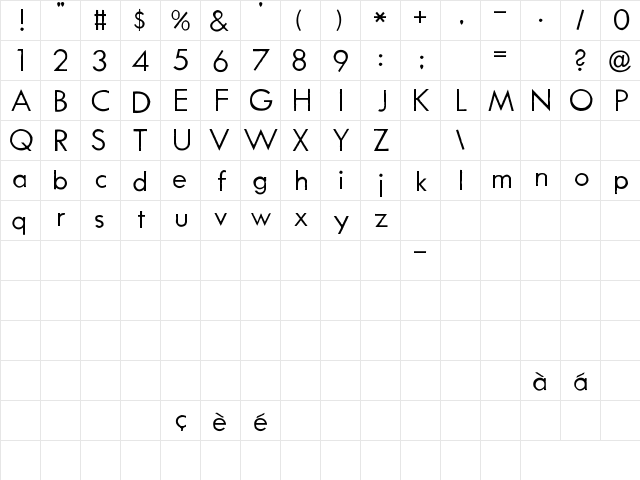
2Peas Weathered Fence 2Peas Weathered Fence
| Foundry | High-Logic |
| Designer | High-Logic - Erwin Denissen |
Design Context for 2Peas Weathered Fence Typeface
2Peas Weathered Fence is a composed and adaptable typeface that performs quietly and consistently across a wide range of design contexts.